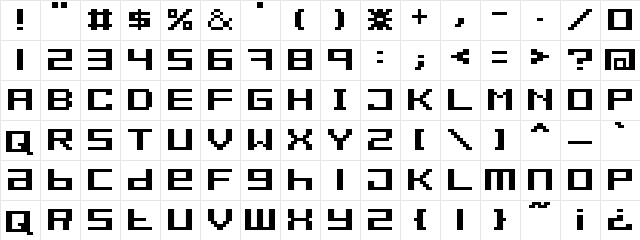
PXLB Bold
Design Context for PXLB Typeface
PXLB offers clean, dependable letterforms without strong stylistic allegiance, making it a practical choice for designers who need flexibility. The heavy weight commands attention and anchors typographic hierarchies.